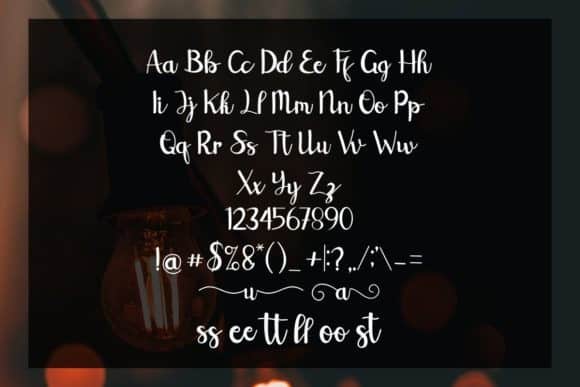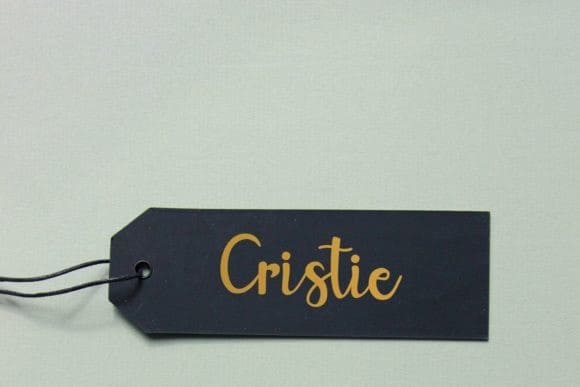
Restu Calligraphy Font
Restu Calligraphy Font is a gorgeous & stylish font can be used for a host of different content needs and projects. It’s a magical script font carefully created with a touch of elegance. This is a beautiful combination of timeless elegance and authentic calligraphy. It features an incredibly classic style, while still keeping a friendly feel. Use it for your headings, logos, business cards, printed quotes, invitations (wedding, birthday, engagement, etc.), packaging, resumes, and even your website or social media branding.